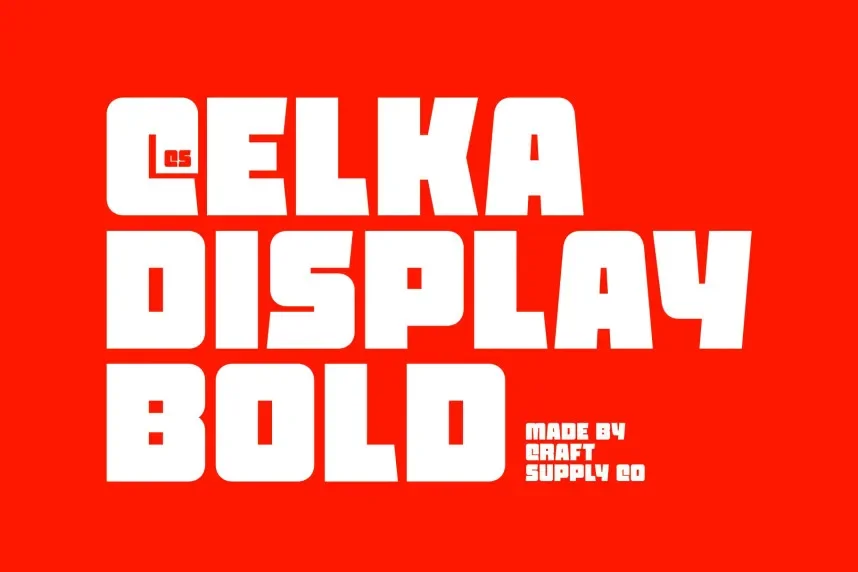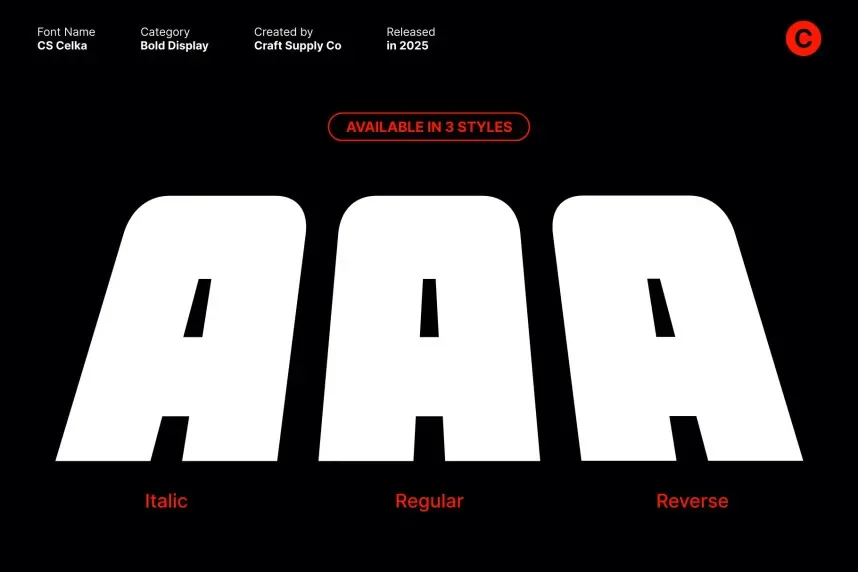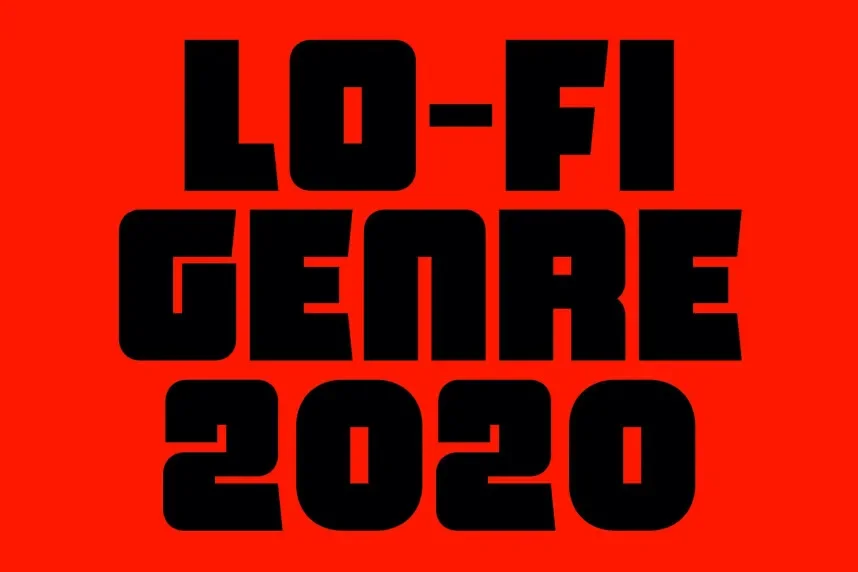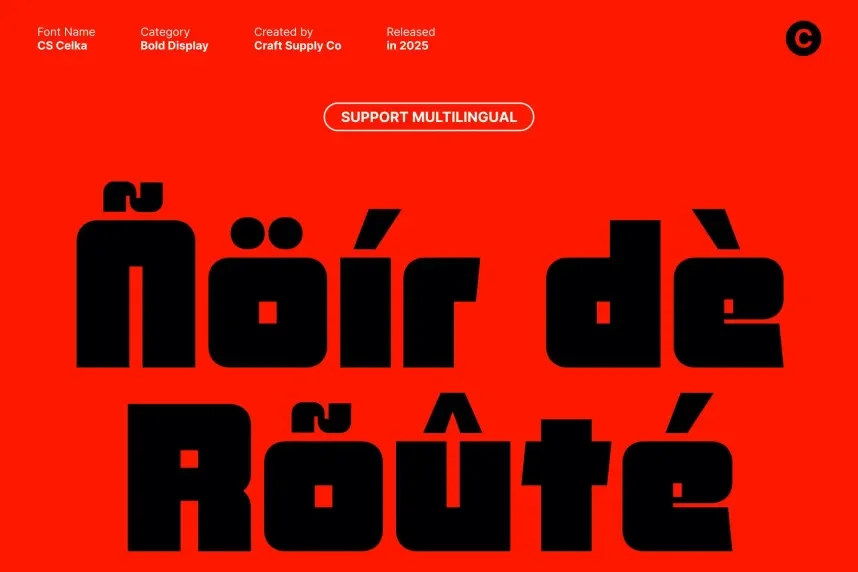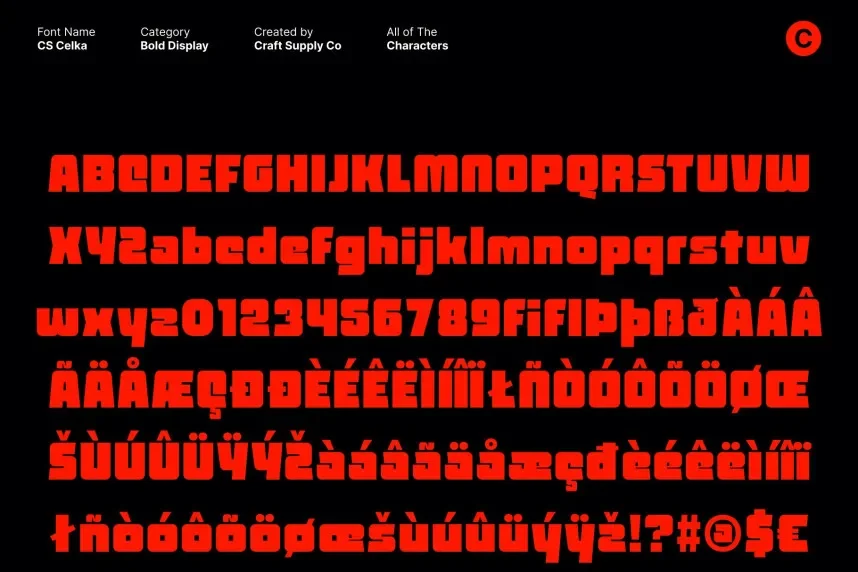
CS Celka Font is a contemporary sans-serif typeface designed for high readability and modern design projects. Its clean lines and well-proportioned letterforms make it suitable for branding, websites, and any project requiring a sleek, professional appearance.